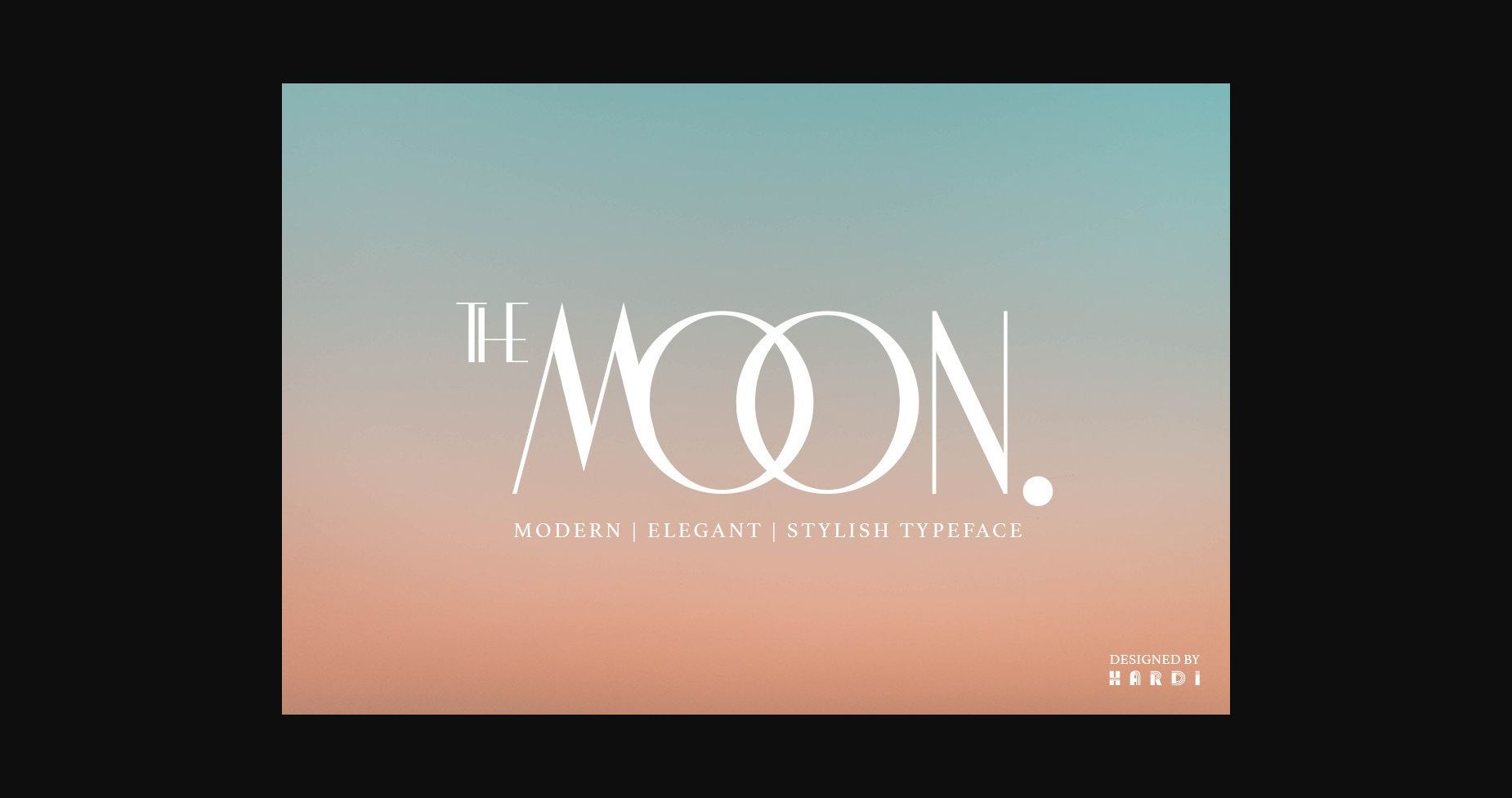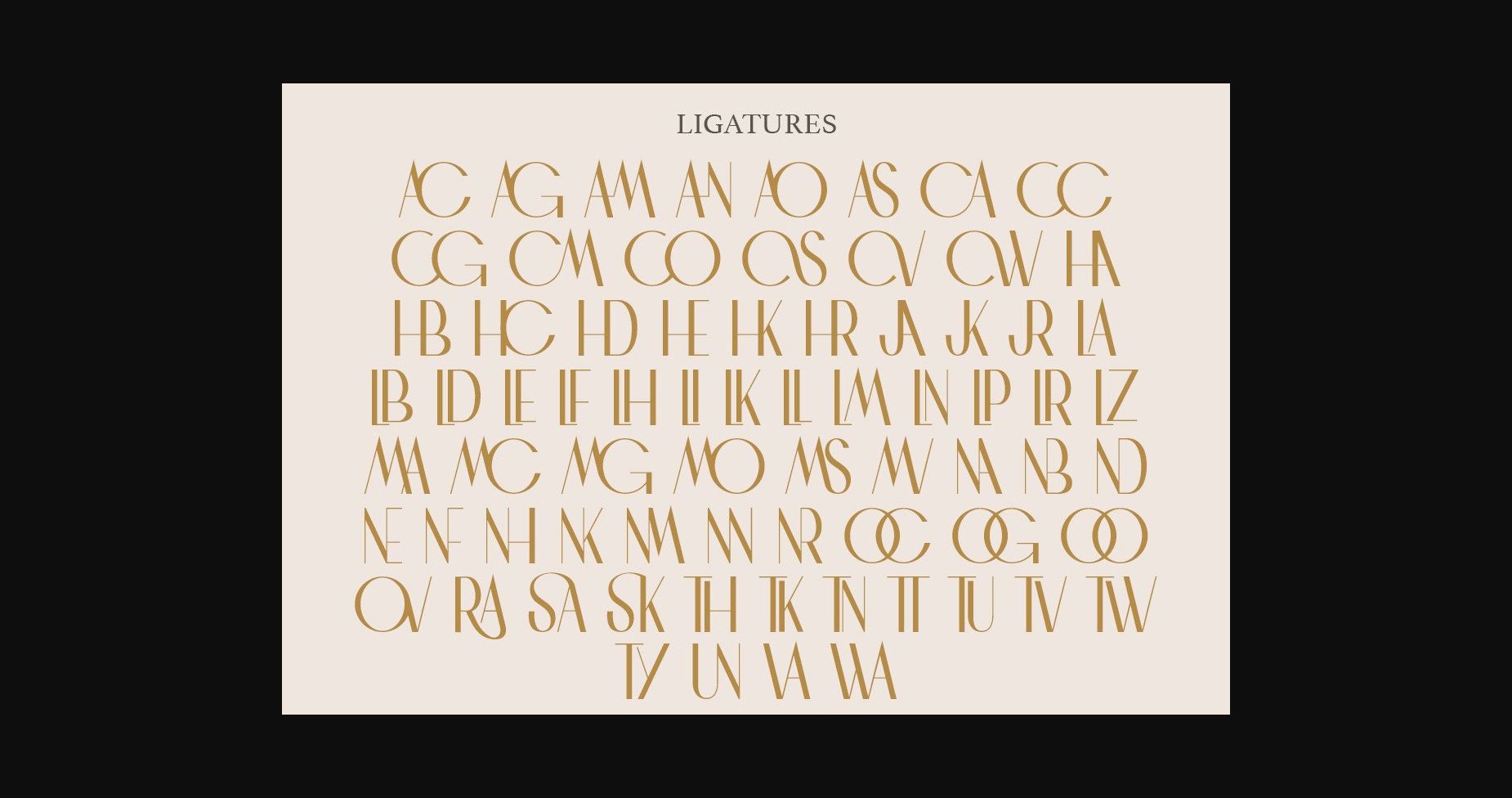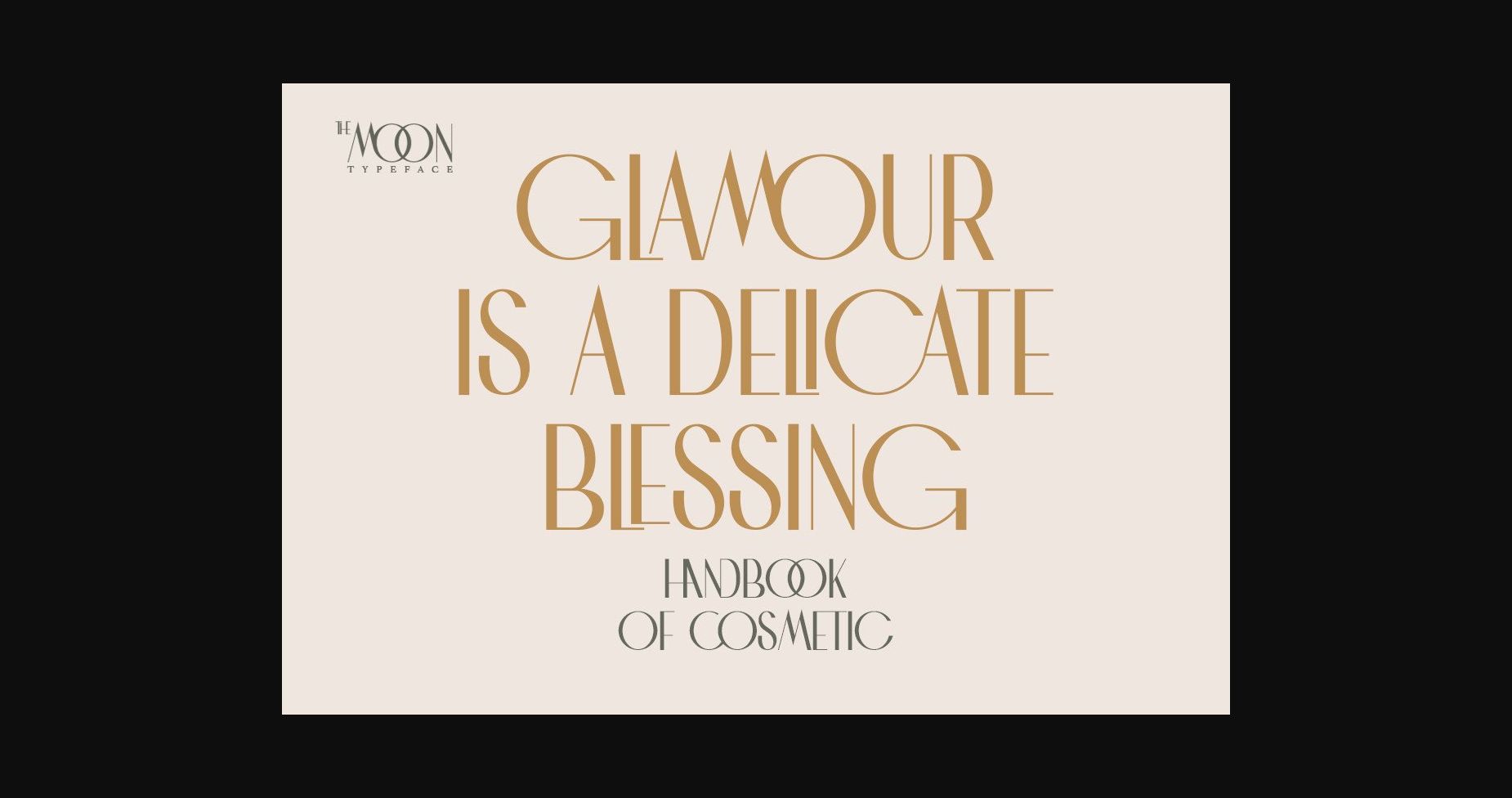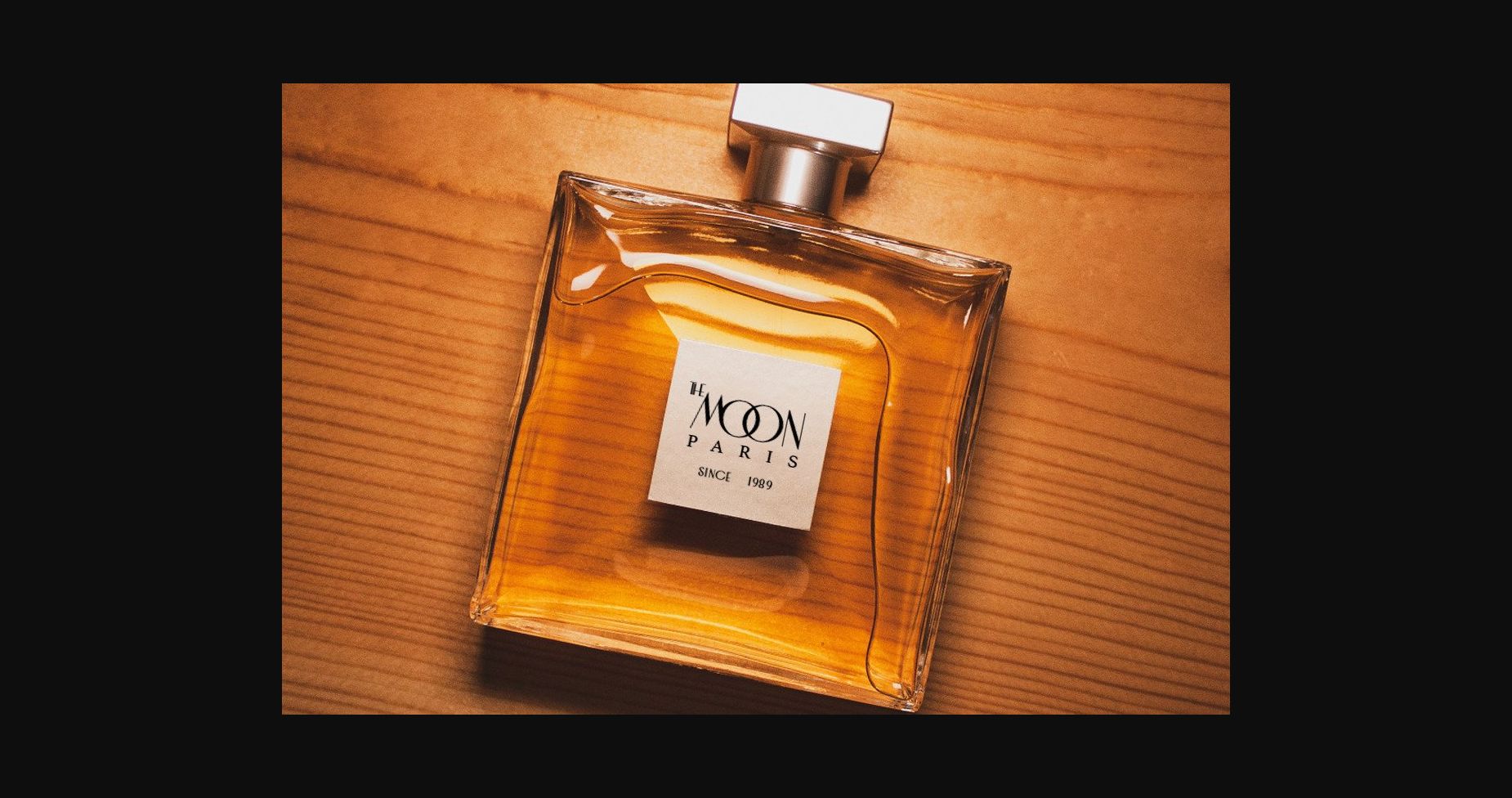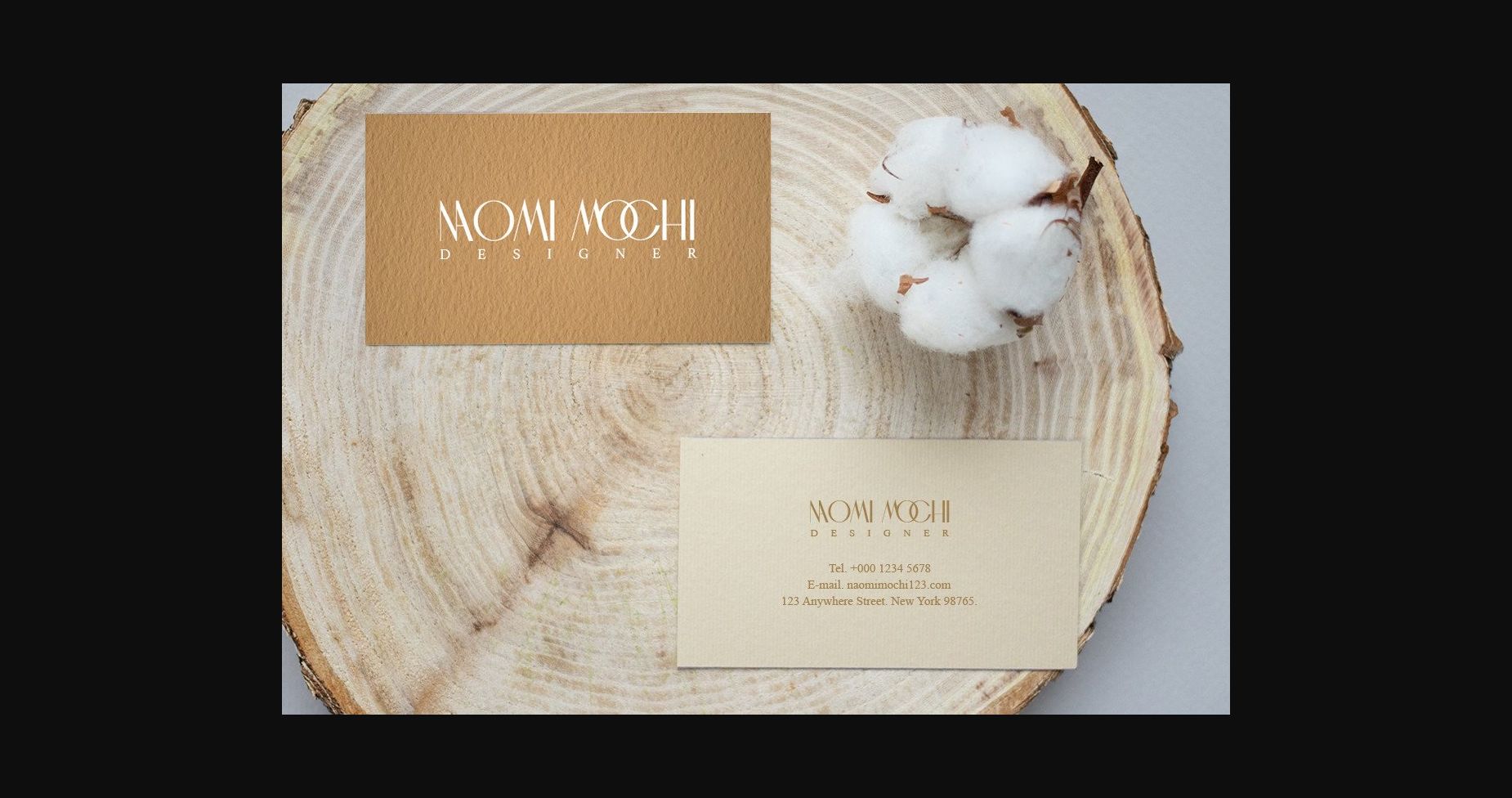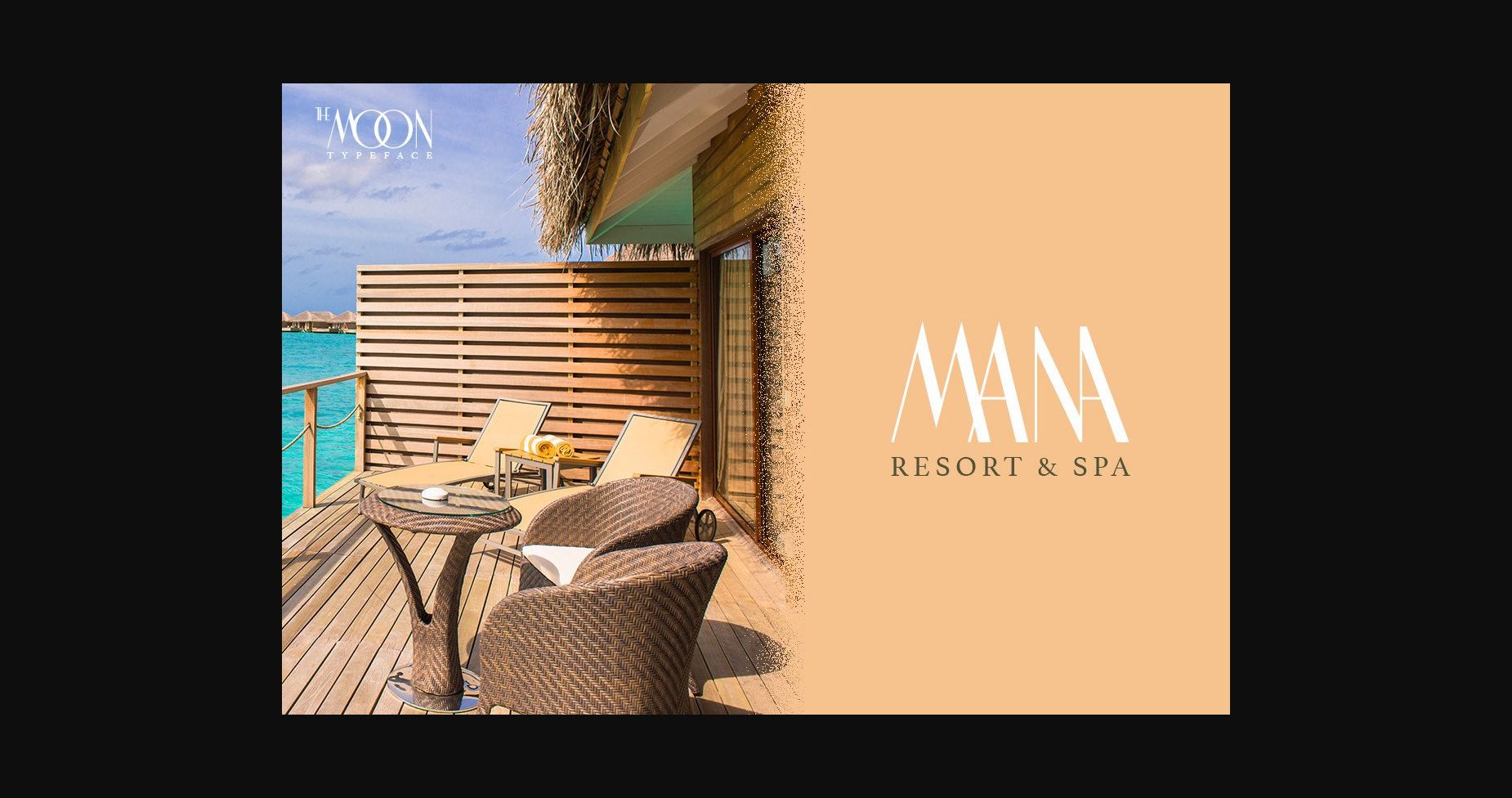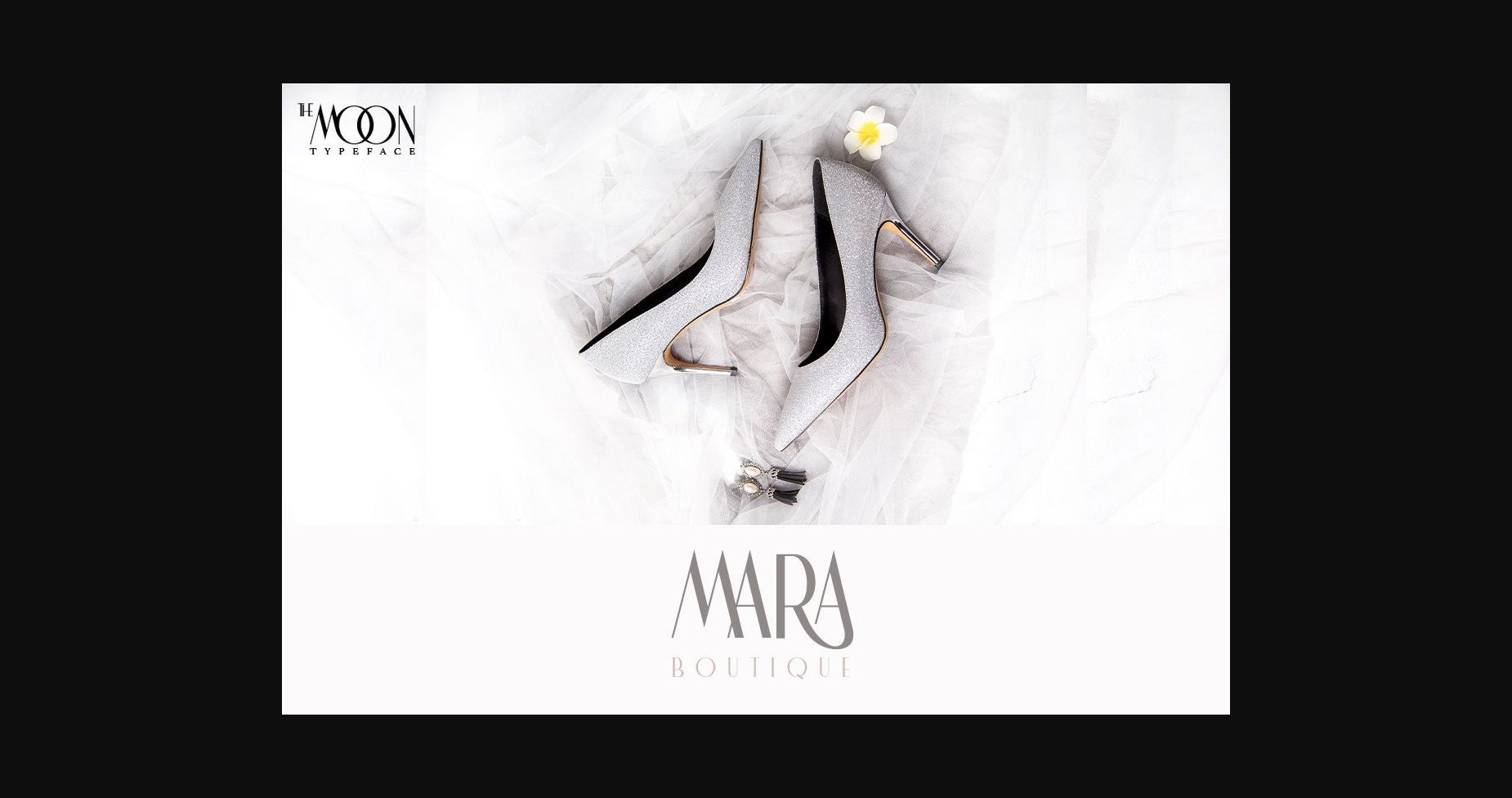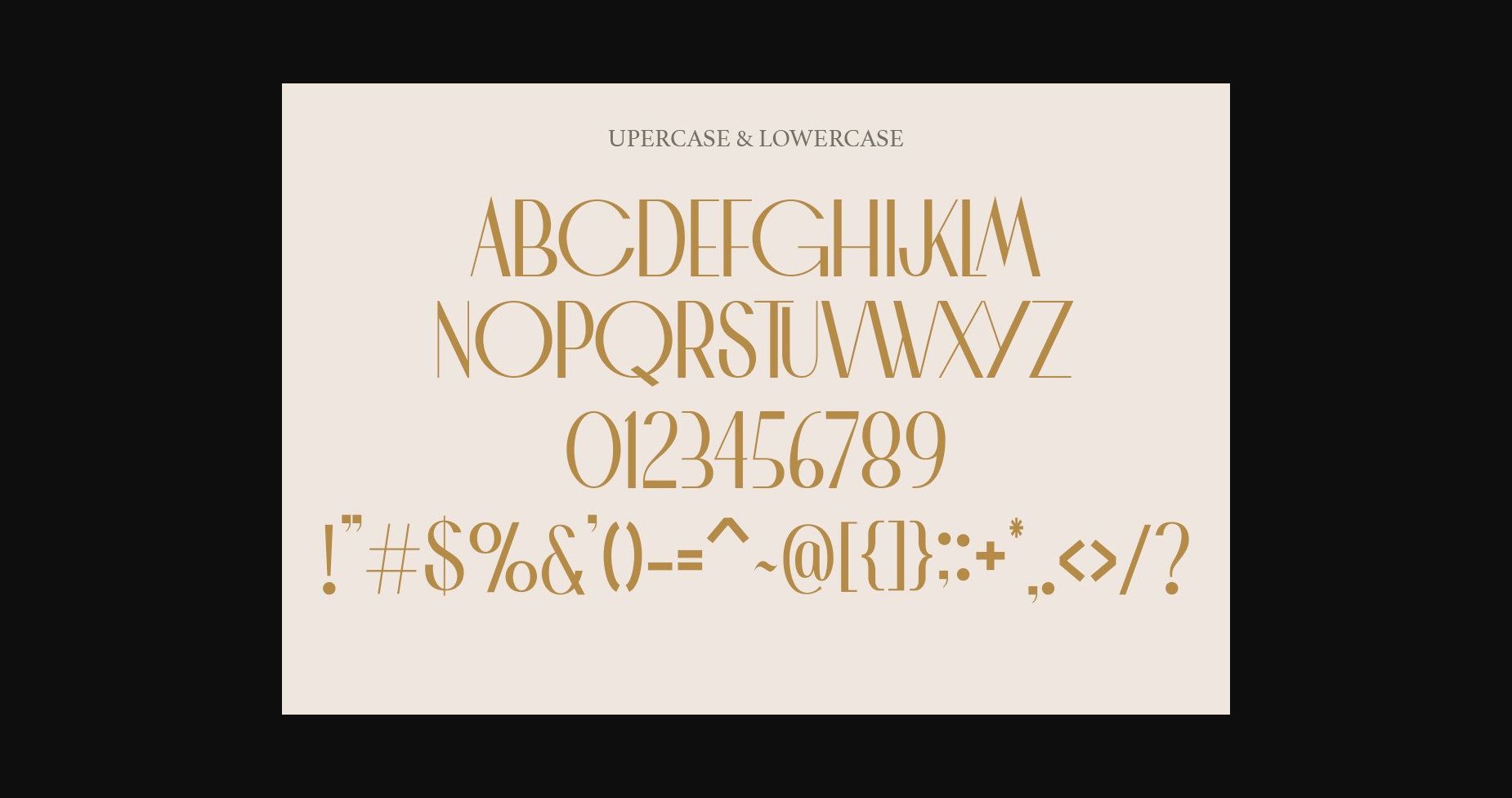
The Moon Font
About The Moon Font
The moon is an amazing font that can be used in a classic style or in a more expressive and elegant design. This minimalist and clean vibe can easily apply to your favorite designs such as book covers, magazines, social media posts, invitations, and so much more!